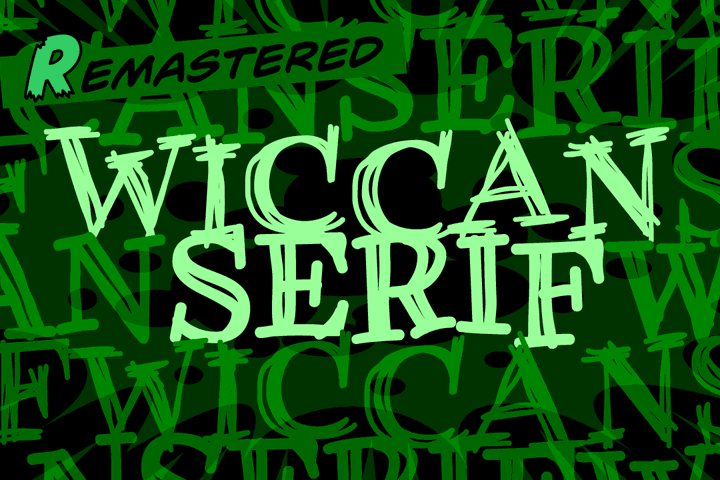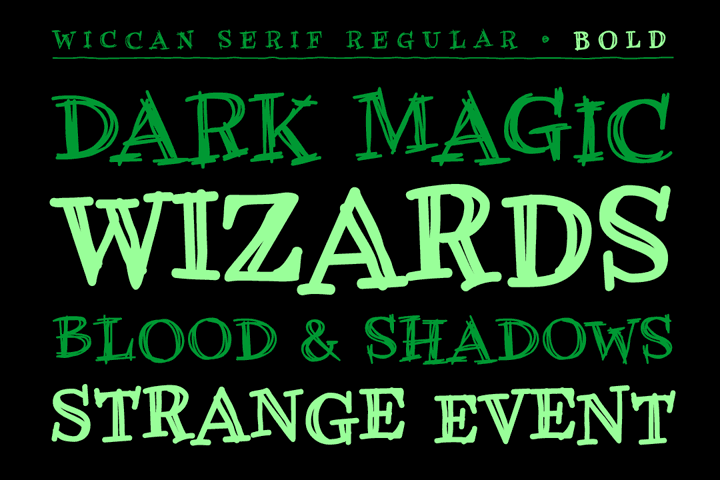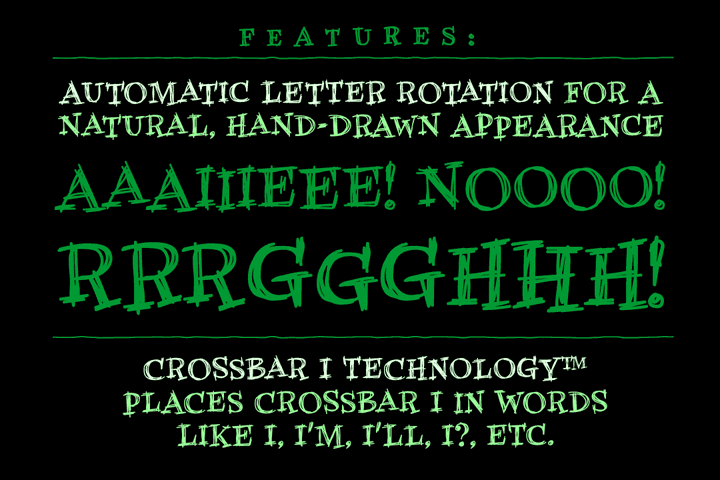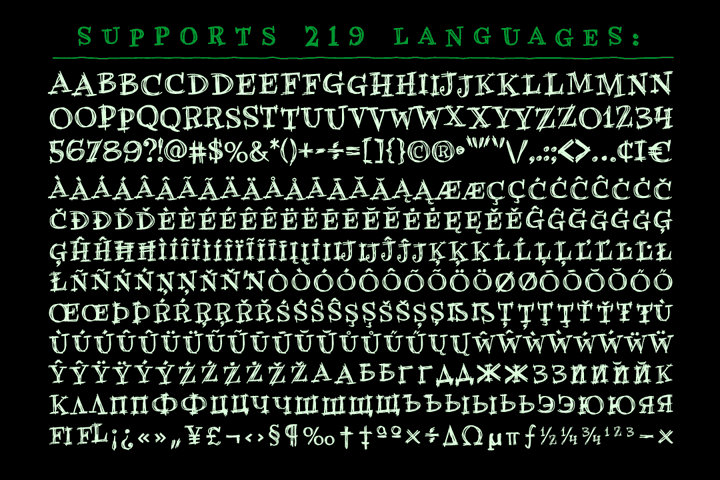
Wiccan Serif
In 1996, three student letterers went into the forest looking for the mysterious fonts used to letter Spawn: Blood & Shadows. They never returned. A year later, their fonts were found.
Remastered Wiccan Serif includes new Western & Central European and Cyrillic characters, automatically cycling alternates and Crossbar I Technology™
Two weights with alternate uppercase alphabets
Plus: Automatic alternates & Crossbar I Technology™